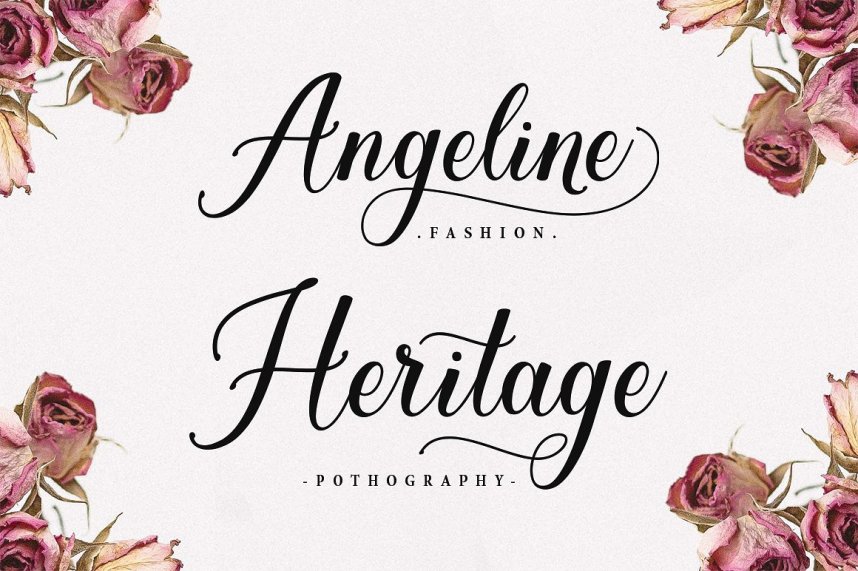
Ainslay Script Font
Ainslay Script is a modern calligraphy font. Ainslay a beautiful for logotype, website header, fashion design,wedding card design and any more. Ainslay comes with elegant style, It also comes as a Ainslay Normal, Ainslay Medium, and Ainslay Bold. It contains a full set of lower & uppercase letters, a large range of punctuation, numerals, and multilingual support.